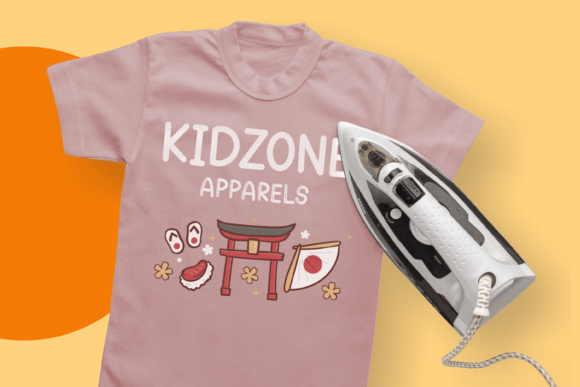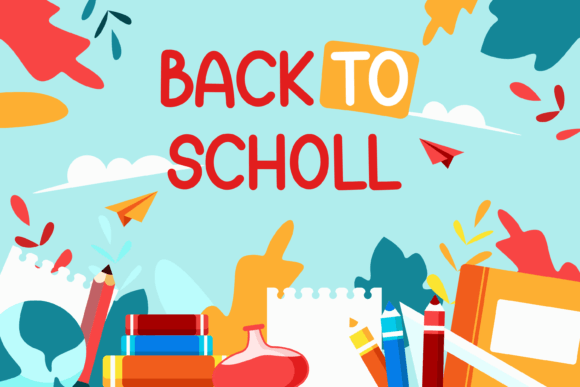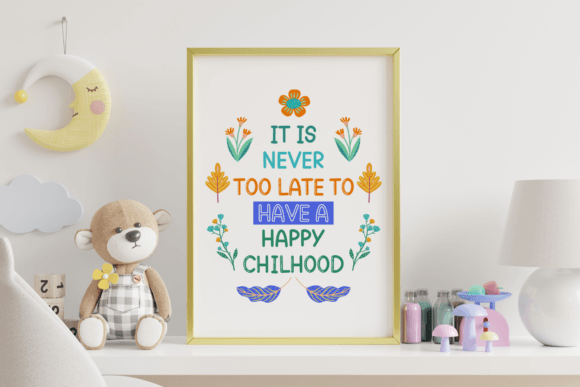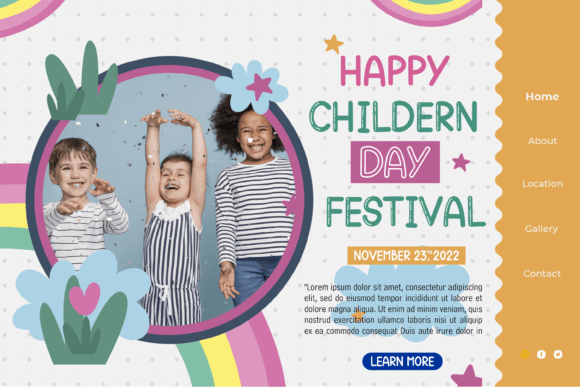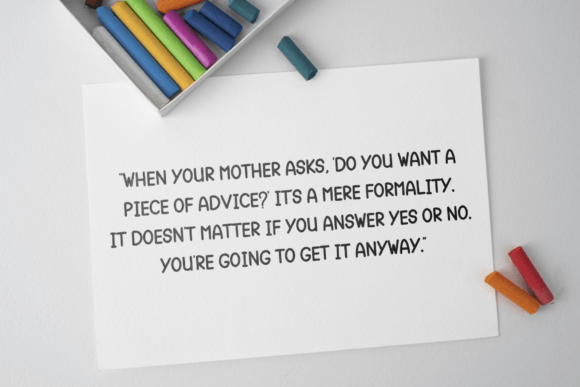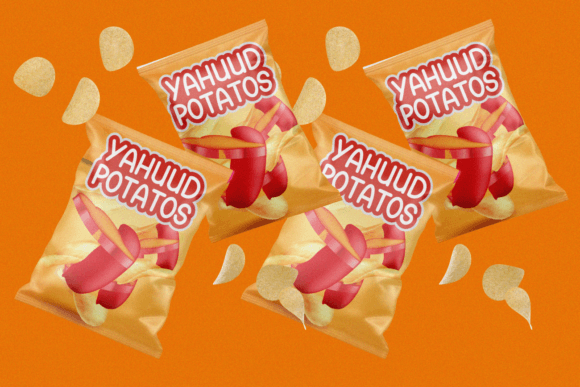
Meet the Sweet Surprise of Gomuno Font
Have you ever stumbled upon a font that makes you go ‘aha!’ in the middle of a creative project? You’re searching for the perfect font to convey the whimsy of your brand, or to add a touch of romance to your wedding invitation. For many designers, this moment of epiphany is what makes all the difference between a good design and a great one.
Enter Gomuno Font, a delightful display font family that’s sure to bring a smile to your face. This charming typeface is designed to be versatile, making it perfect for a wide range of projects, from product packaging and branding to magazines and social media. Its unique blend of playfulness and sophistication makes it an invaluable asset for any designer looking to add a touch of personality to their work.
Gomuno Font Key Features
- Font Family: Gomuno Font is a sans-serif font family designed for various digital applications.
- Character Set: The font includes a wide range of characters, including Latin, Cyrillic, and Greek alphabets, as well as various symbols and punctuation marks.
- Font Size and Resolution: Designed to work well at various font sizes, from 10 to 24 points, and resolutions up to 300 DPI.
- Unique Characteristics: Gomuno Font features a clean and modern design with a unique blend of geometric and organic elements, making it suitable for a wide range of applications, including corporate branding, digital products, and publications.
- Font Weight and Style: Available in light, regular, bold, and italic styles, allowing users to customize the font to suit their specific needs.
Gomuno Font Review
Overall, I’m quite pleased with the Gomuno Font. Its modern aesthetic and clean lines make it a great choice for a variety of design projects. ✨ I particularly appreciate its flexibility – it works well in both digital and print formats.
Here are some of the features that I enjoy:
- Unique style**: Gomuno Font offers a unique blend of modern and minimalist design elements, making it stand out from more traditional fonts.
- High legibility**: The font is highly legible, even at smaller sizes, making it perfect for body text or headings.
- Great for branding**: Gomuno Font’s modern aesthetic makes it an excellent choice for branding and logo design.
- Limited character set**: Gomuno Font’s character set is not as comprehensive as some other fonts, which may limit its use for certain projects.
- Not suitable for complex text**: Due to its simplicity, Gomuno Font may not be the best choice for complex text or text-heavy designs.
Overall, I think Gomuno Font is a great addition to any designer’s toolkit. While it may have some limitations, its unique style and high legibility make it a great choice for a variety of projects. ⚠️
Tips for Getting the Most Out of Gomuno Font
Experiment with different font sizes and styles to create a visually appealing design.
Use Gomuno font’s unique features, such as ligatures and swashes, to add personality to your design.
Combine Gomuno font with other fonts to create a unique and interesting typography.
Gomuno font is ideal for:
Designing invitations and event materials
Creating brand identity materials, such as business cards and letterheads
Adding a touch of elegance to digital and print materials
Alternatives to Gomuno Font
Monserrat Font is a sans-serif typeface designed by Julieta Ulanovsky. It is a great alternative to Gomuno Font when you need a modern, urban feel for your design. Montserrat Font is more geometric and has a stronger x-height compared to Gomuno Font, making it ideal for body text and headings in digital interfaces.
Open Sans Font is a popular sans-serif typeface designed by Steve Matteson. It is a great alternative to Gomuno Font when you need a clean, neutral font for your design. Open Sans Font is more rounded and has a softer feel compared to Gomuno Font, making it ideal for branding, packaging, and editorial design.
Lato Font is a sans-serif typeface designed by Łukasz Dziedzic. It is a great alternative to Gomuno Font when you need a modern, elegant feel for your design. Lato Font is more refined and has a stronger contrast compared to Gomuno Font, making it ideal for luxury branding, advertising, and editorial design.